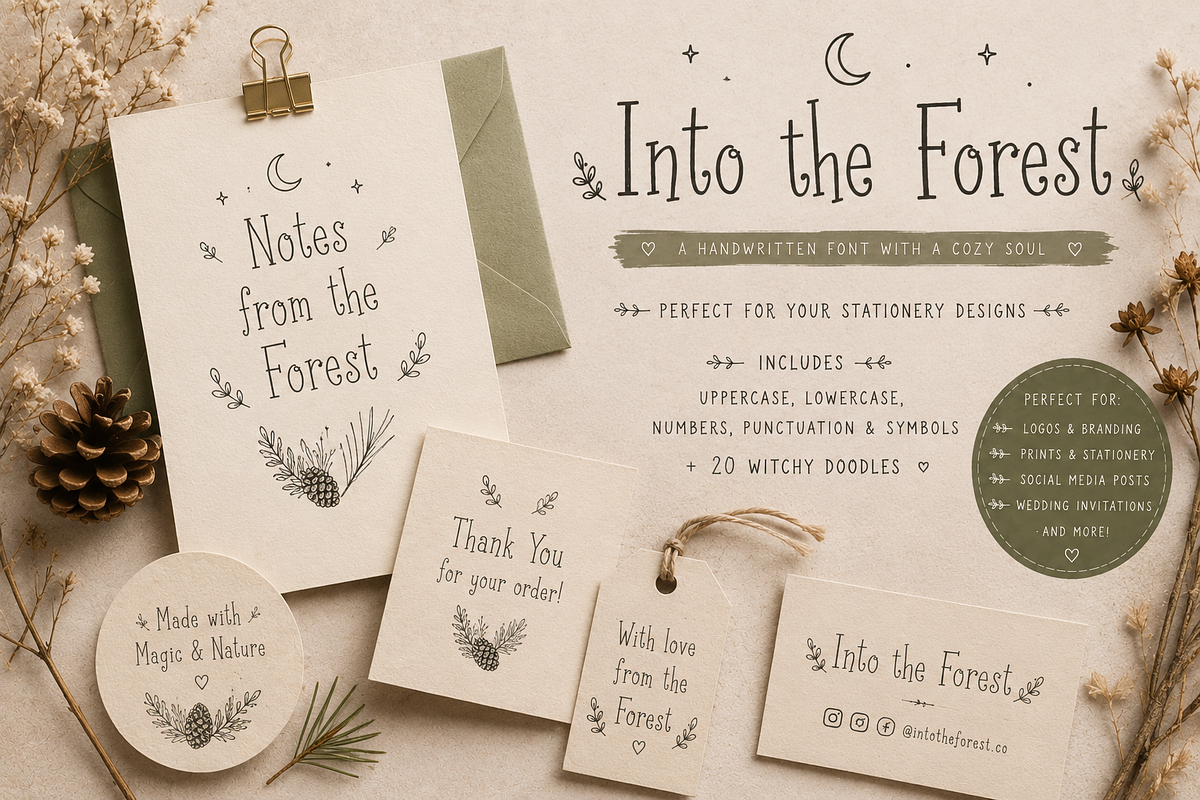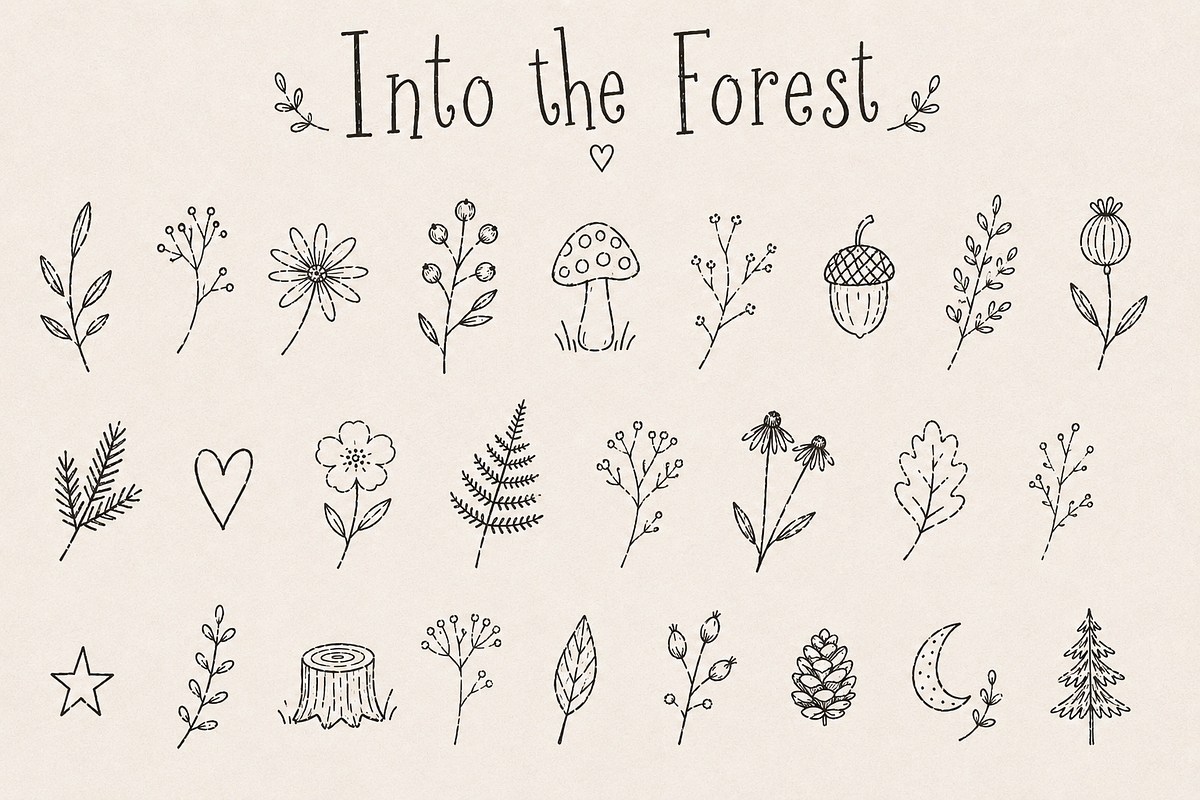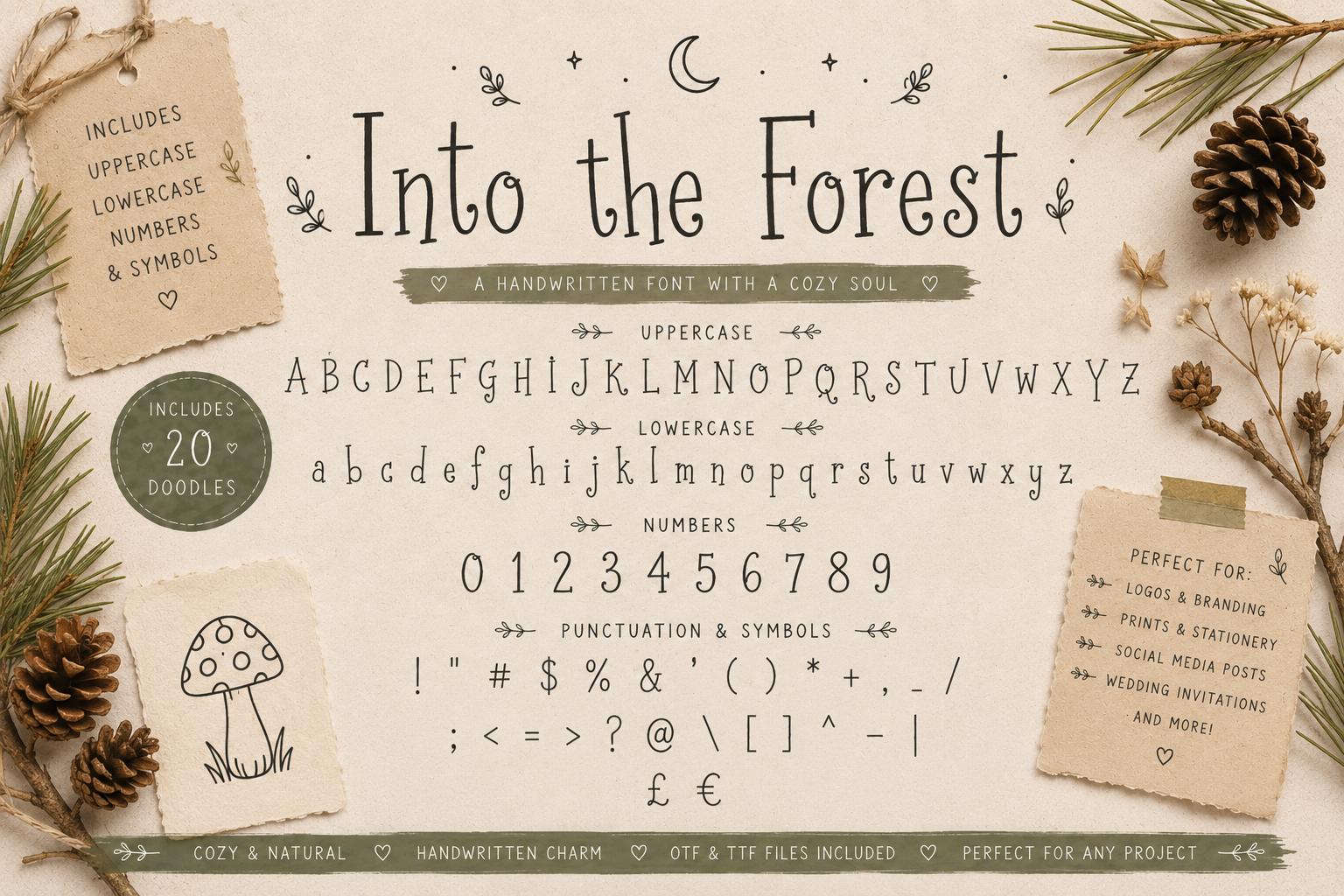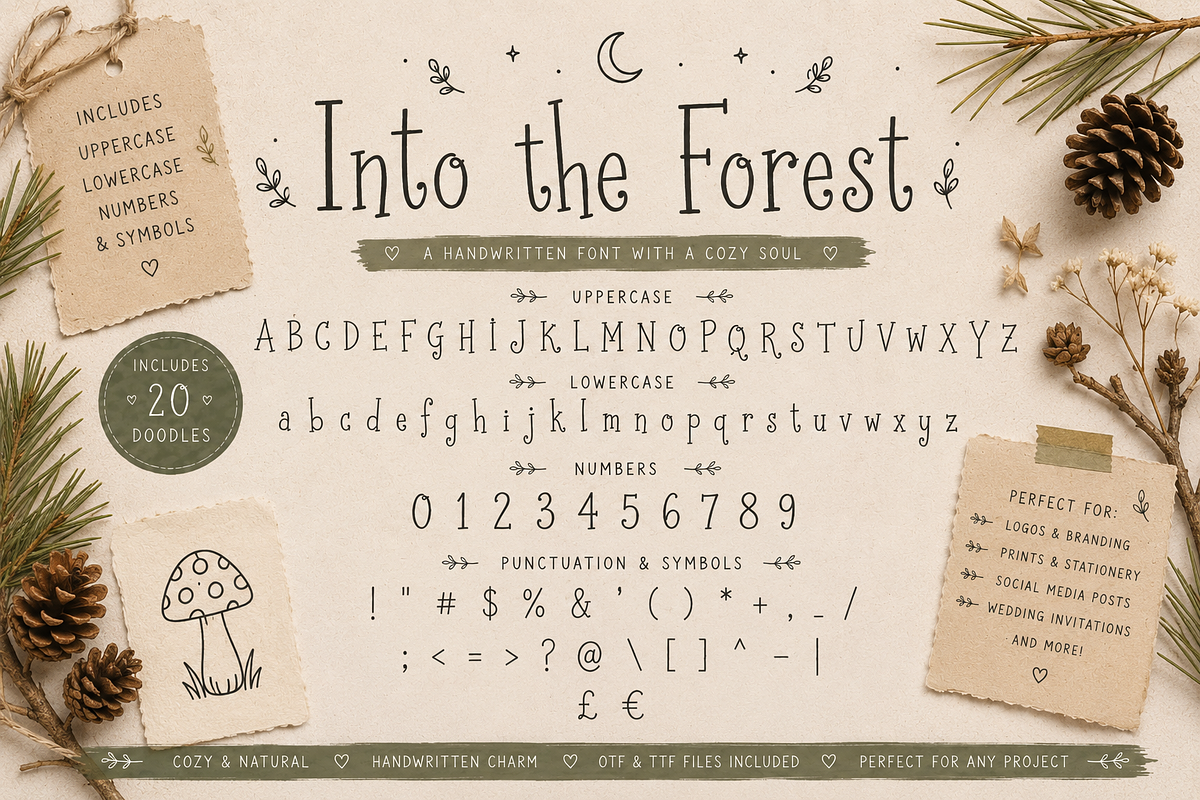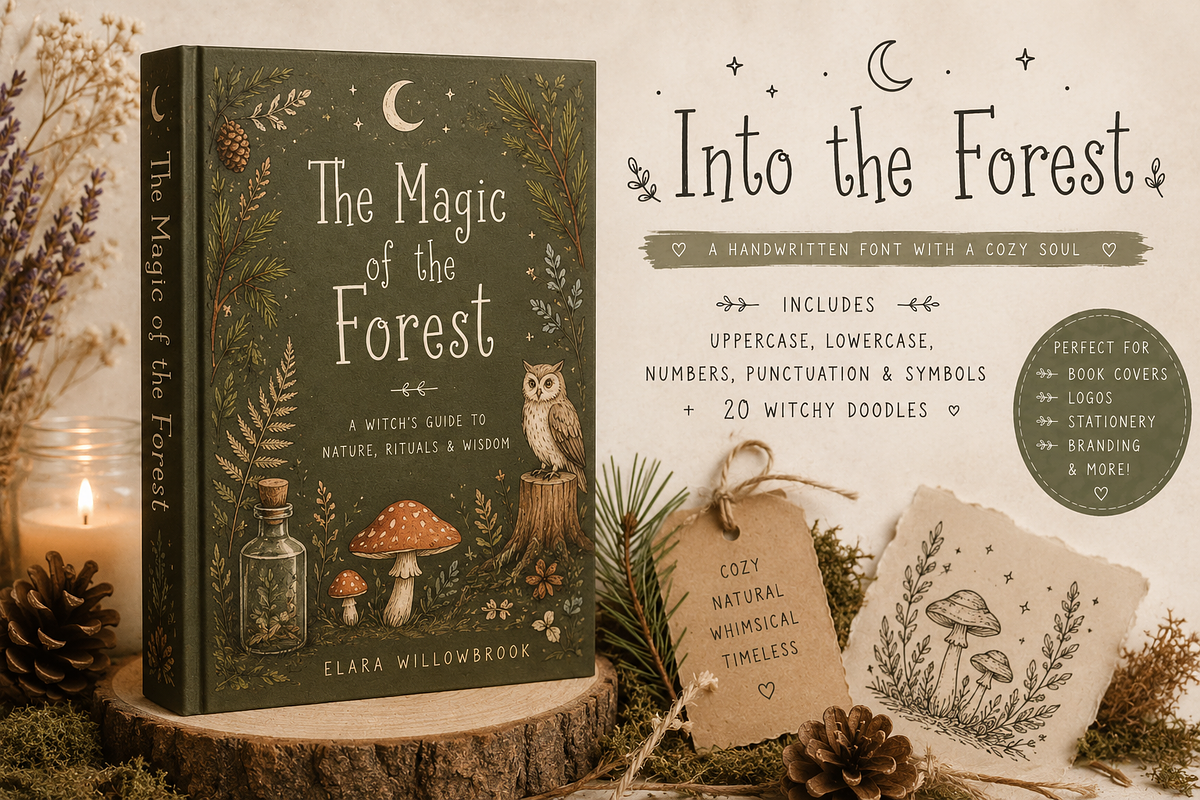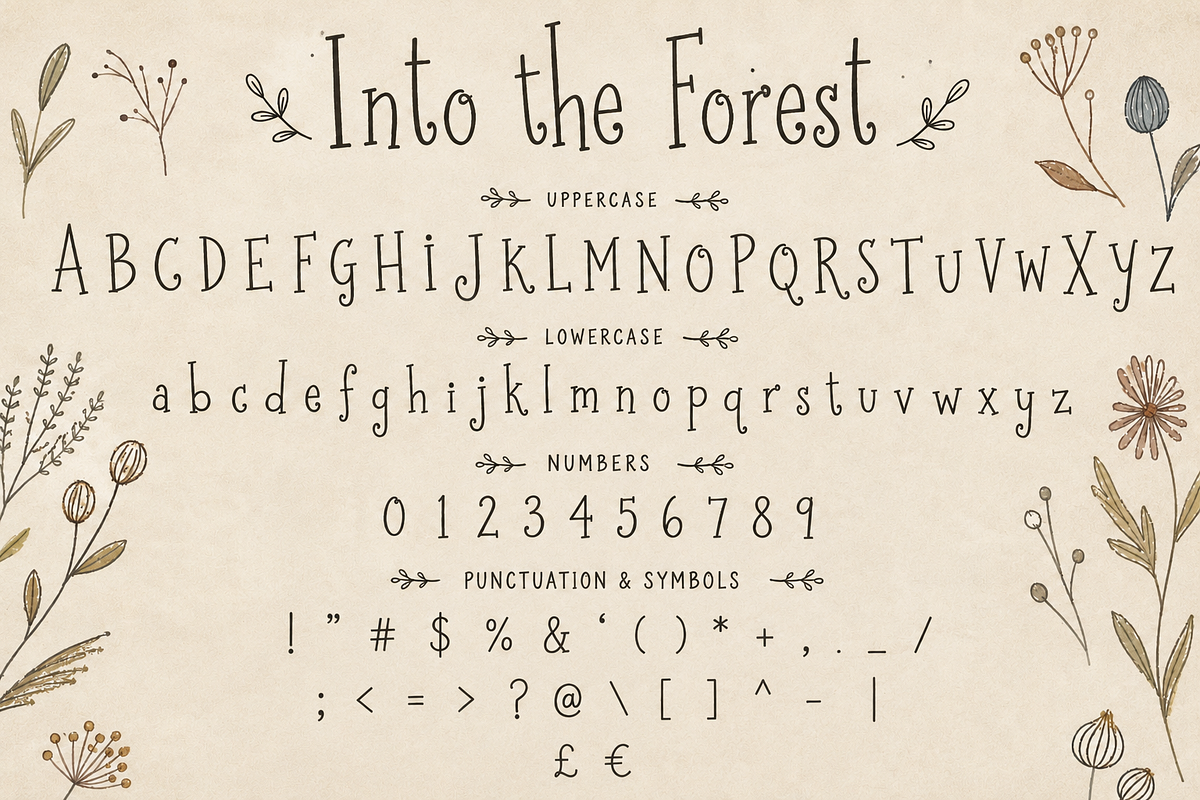
Into the Forest - Rustic Font
Into the Forest Handwritten Font + 20 Forest Doodles
Into the Forest is a whimsical handwritten font inspired by quiet woodland walks, cozy cabins, dried botanicals and magical forest stories. Its tall, elegant letterforms with playful curls make it perfect for creating warm, handcrafted designs with a natural and timeless feel.
• Book Covers
• Logos & Branding
• Stationery
• Greeting Cards
• Wedding Invitations
• Journals & Planners
• Packaging
• Social Media Graphics
• Stickers
• Printable Designs
• Cricut & Silhouette Projects
• Creative Market Templates
• Handmade Products